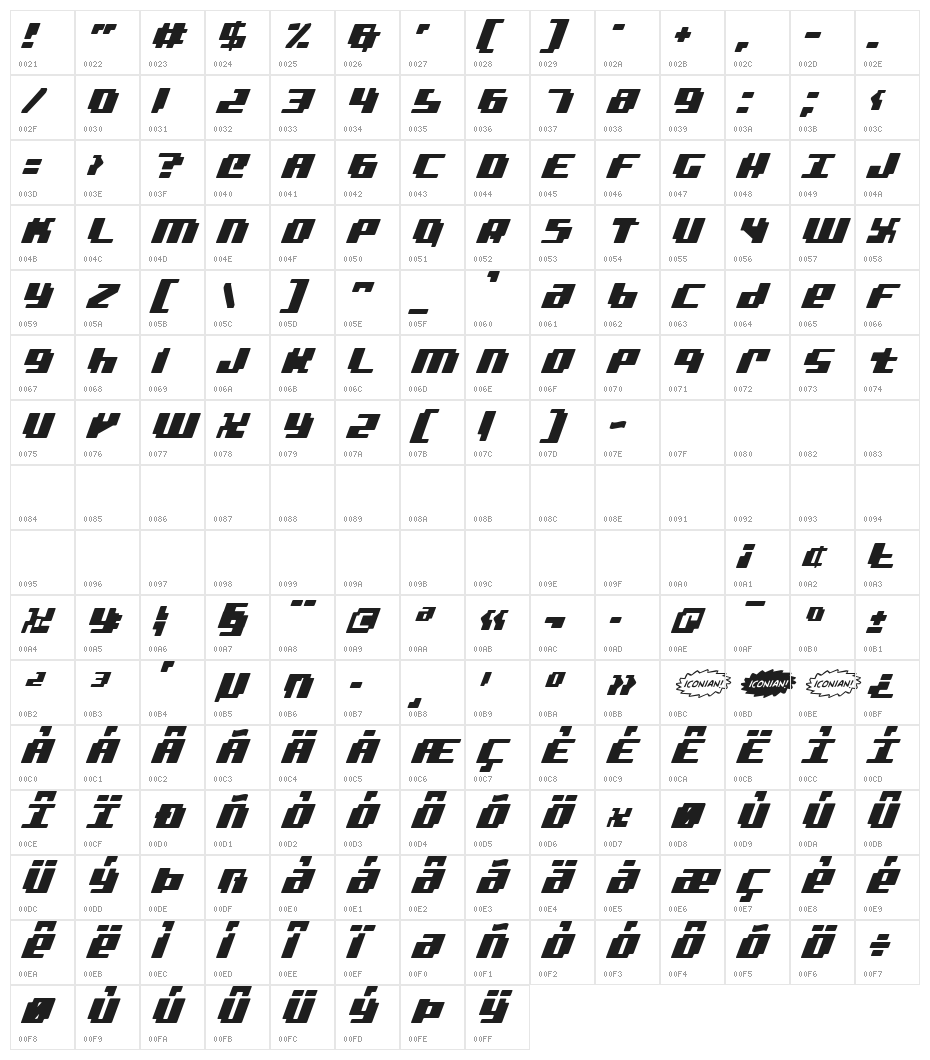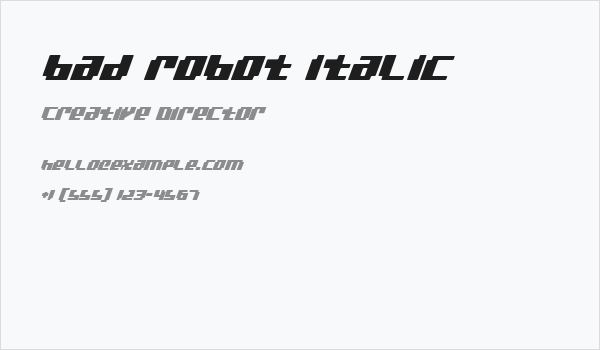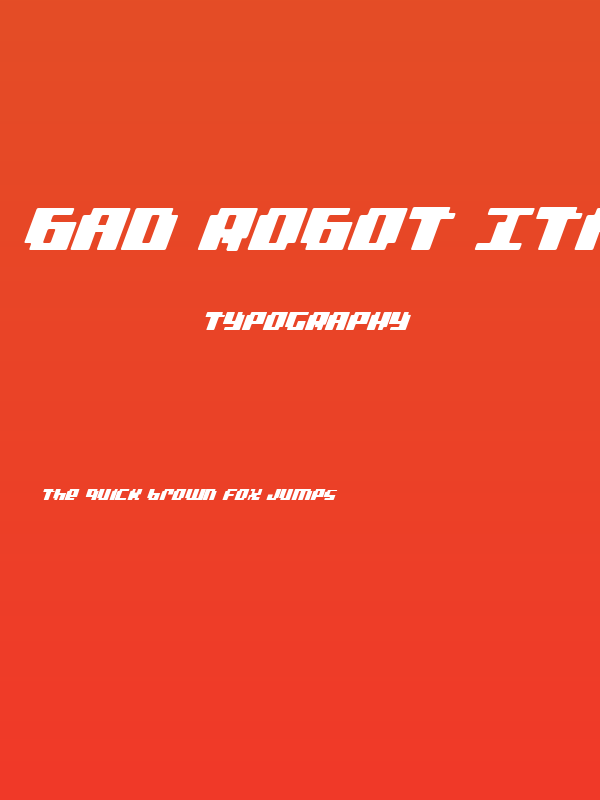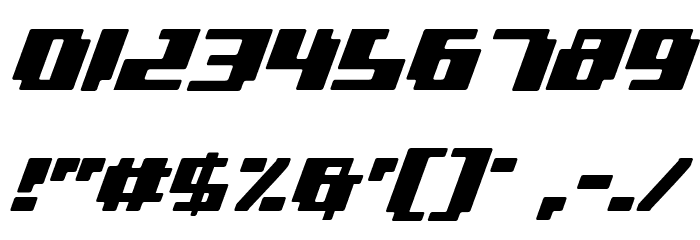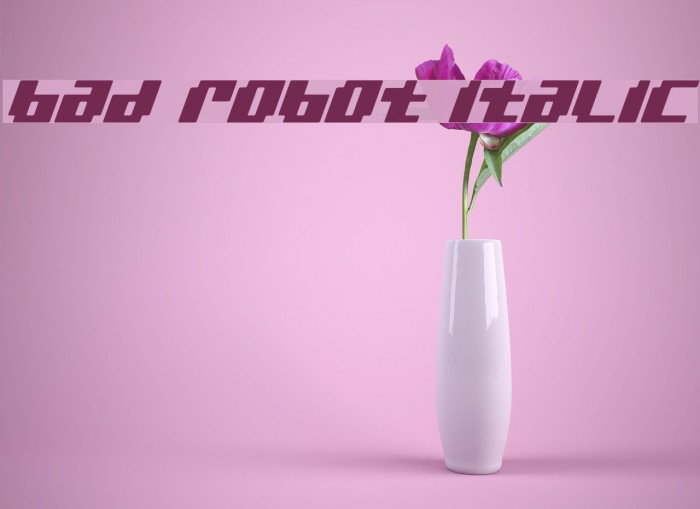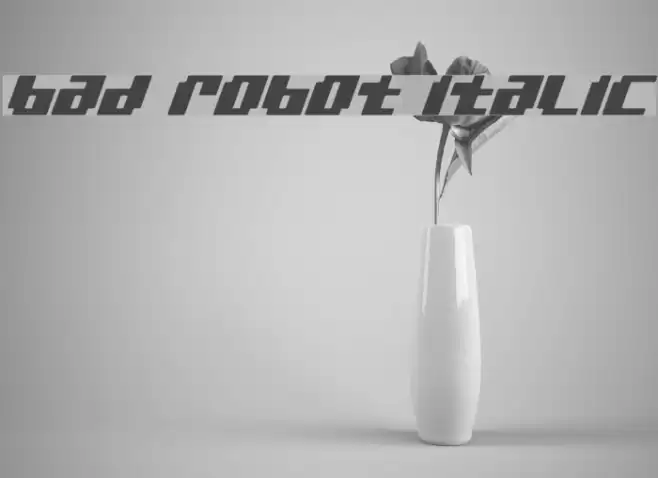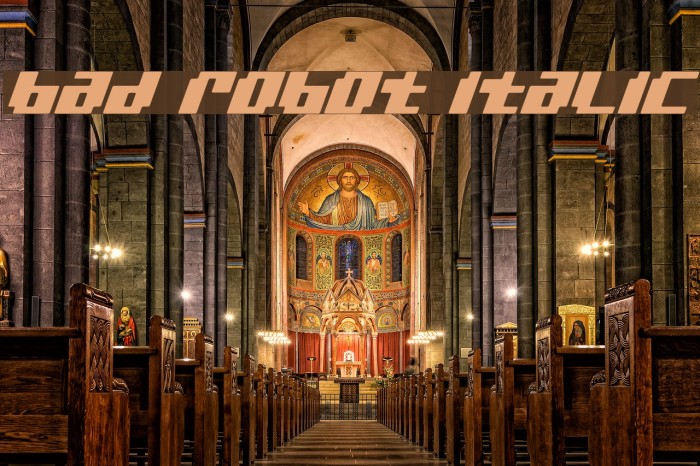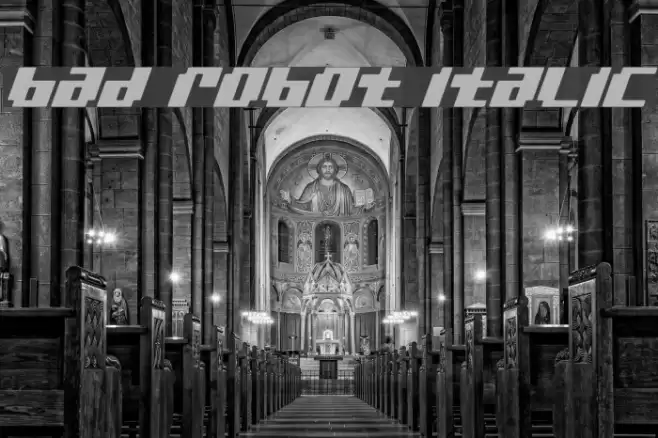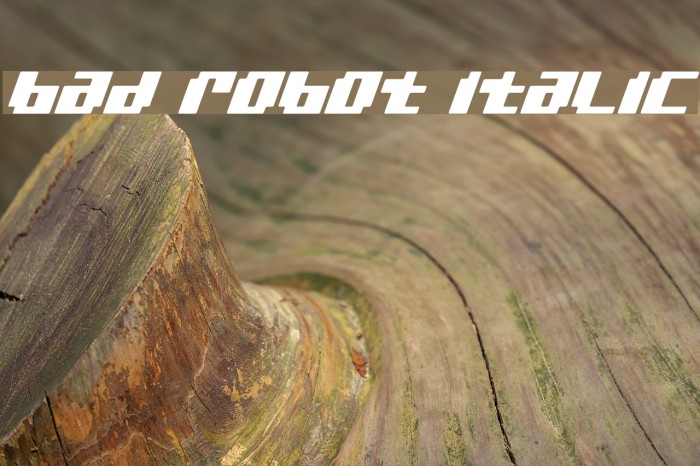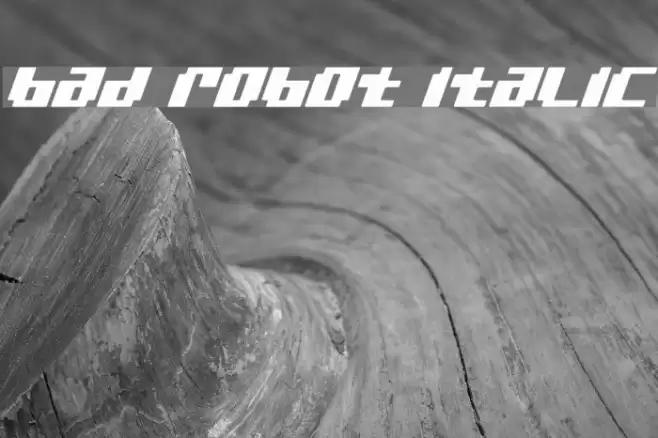
bad robot italic Font
bad robot italic Description
This font features a bold, angular design with a futuristic and mechanical aesthetic. The characters are sharply defined with a consistent slant, giving an italicized appearance that adds dynamism and movement. The uppercase and lowercase letters maintain a uniform height, contributing to a cohesive look. Numbers and special characters follow the same stylistic approach, ensuring versatility across different types of content. The font's geometric structure and strong presence make it ideal for projects that require a modern and edgy feel.
| Proposed Projects | Ideal for sci-fi themed designs, video game graphics, tech branding, and futuristic posters. |